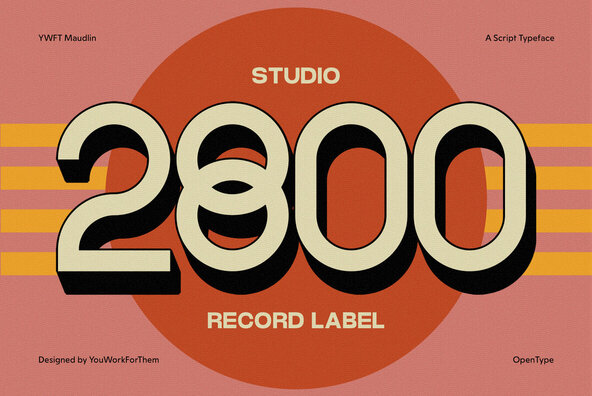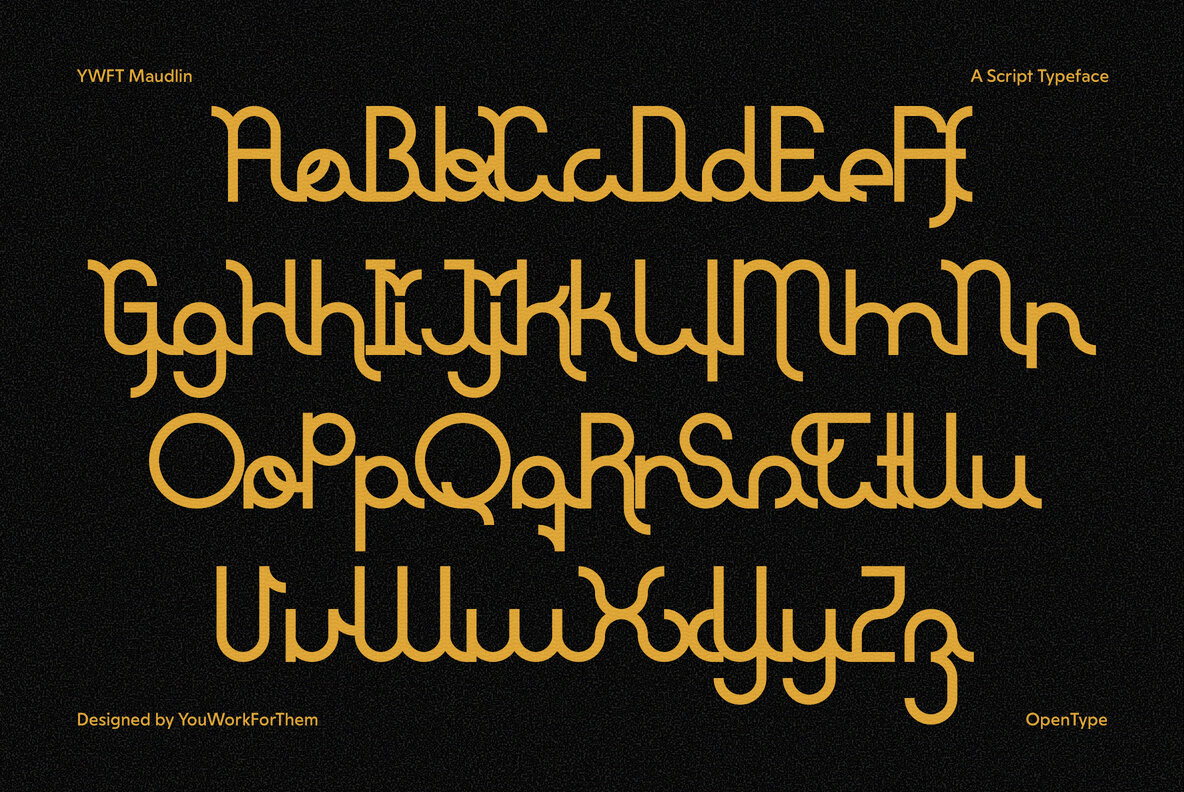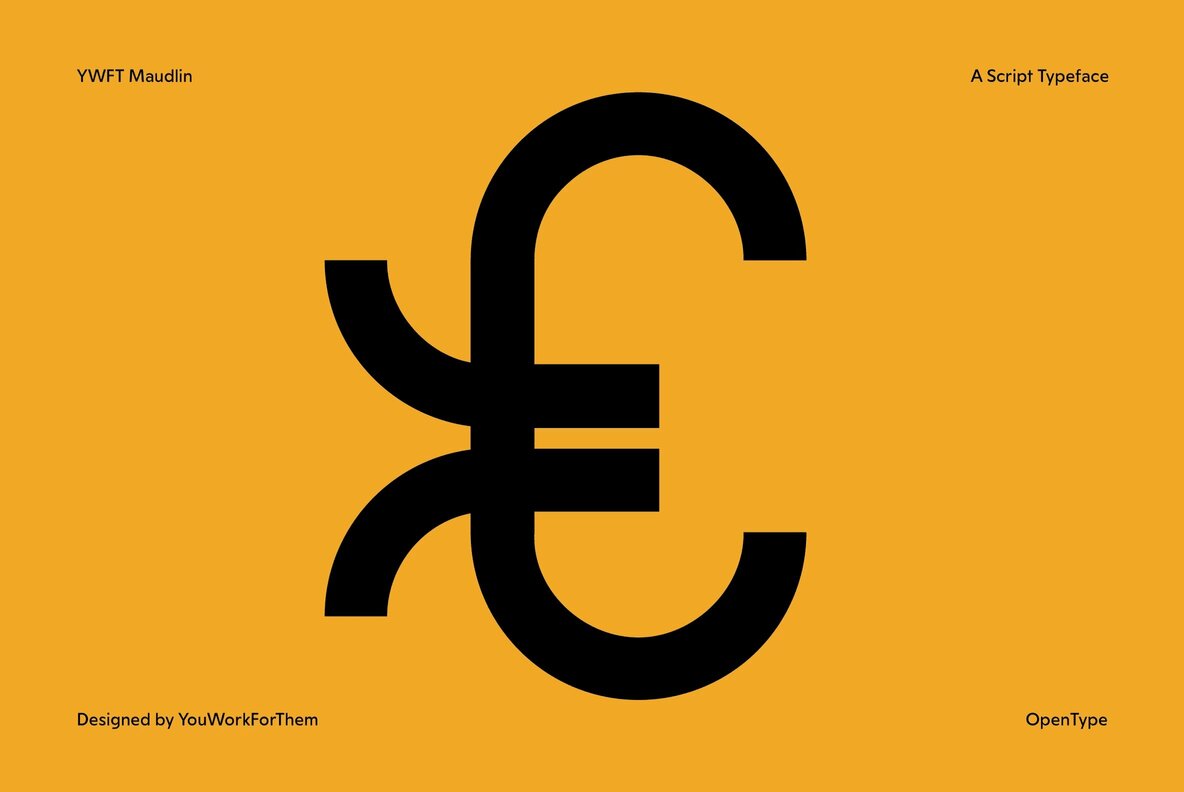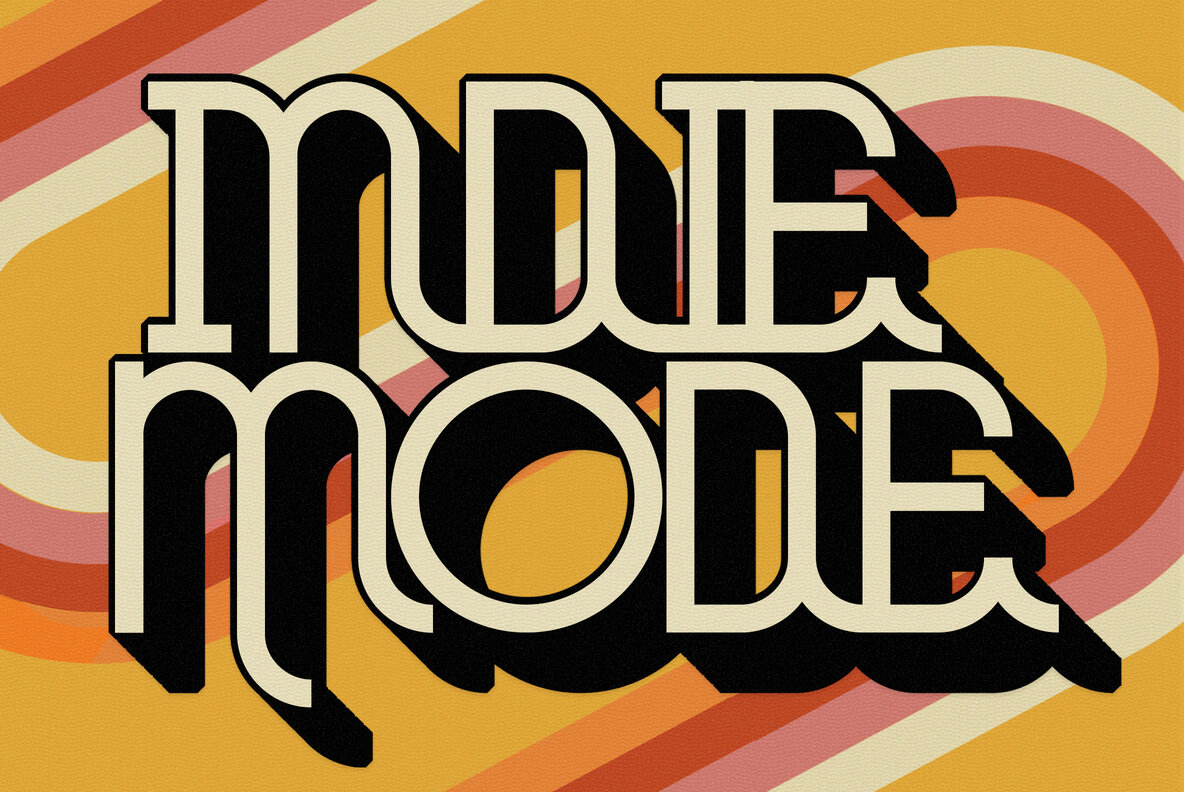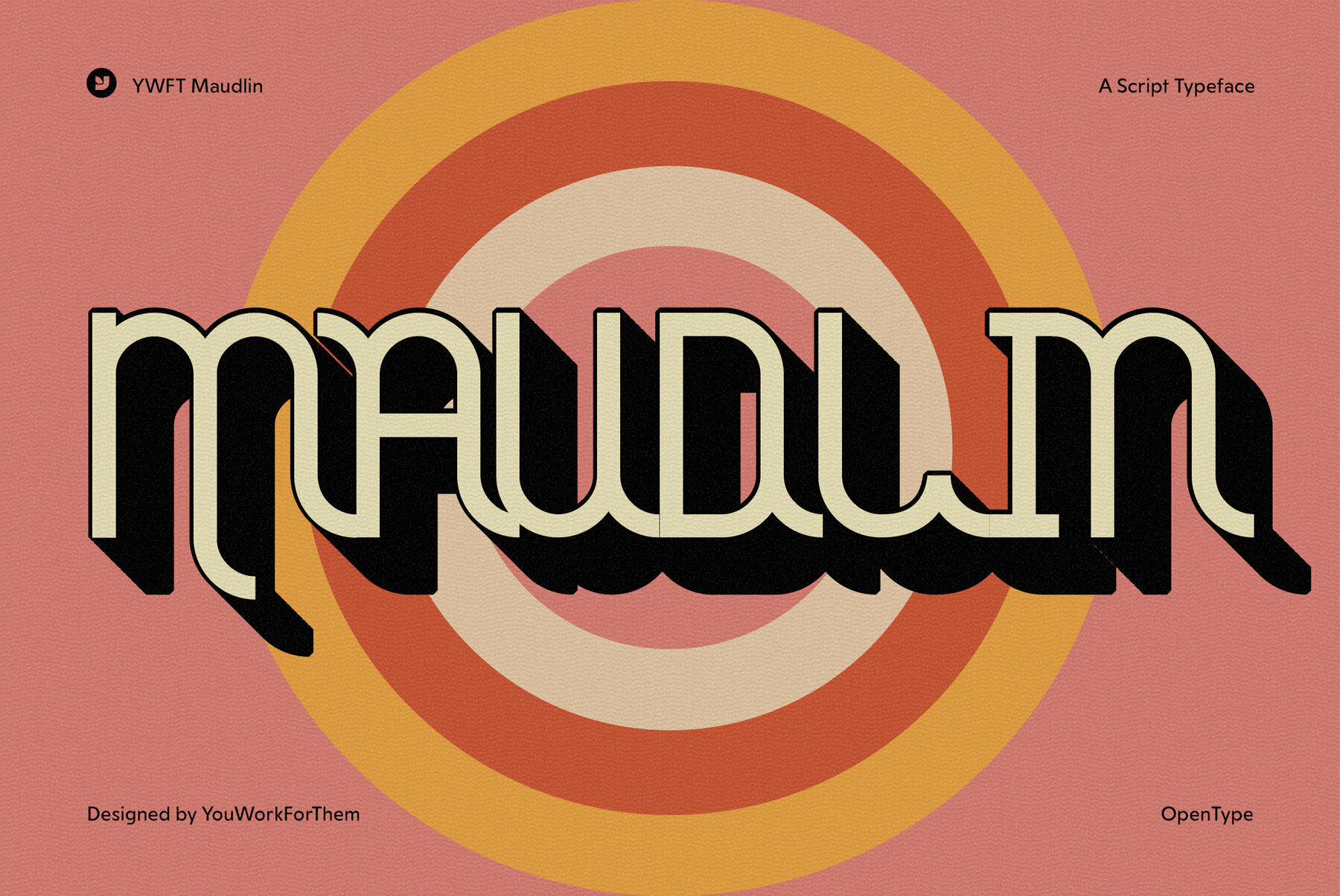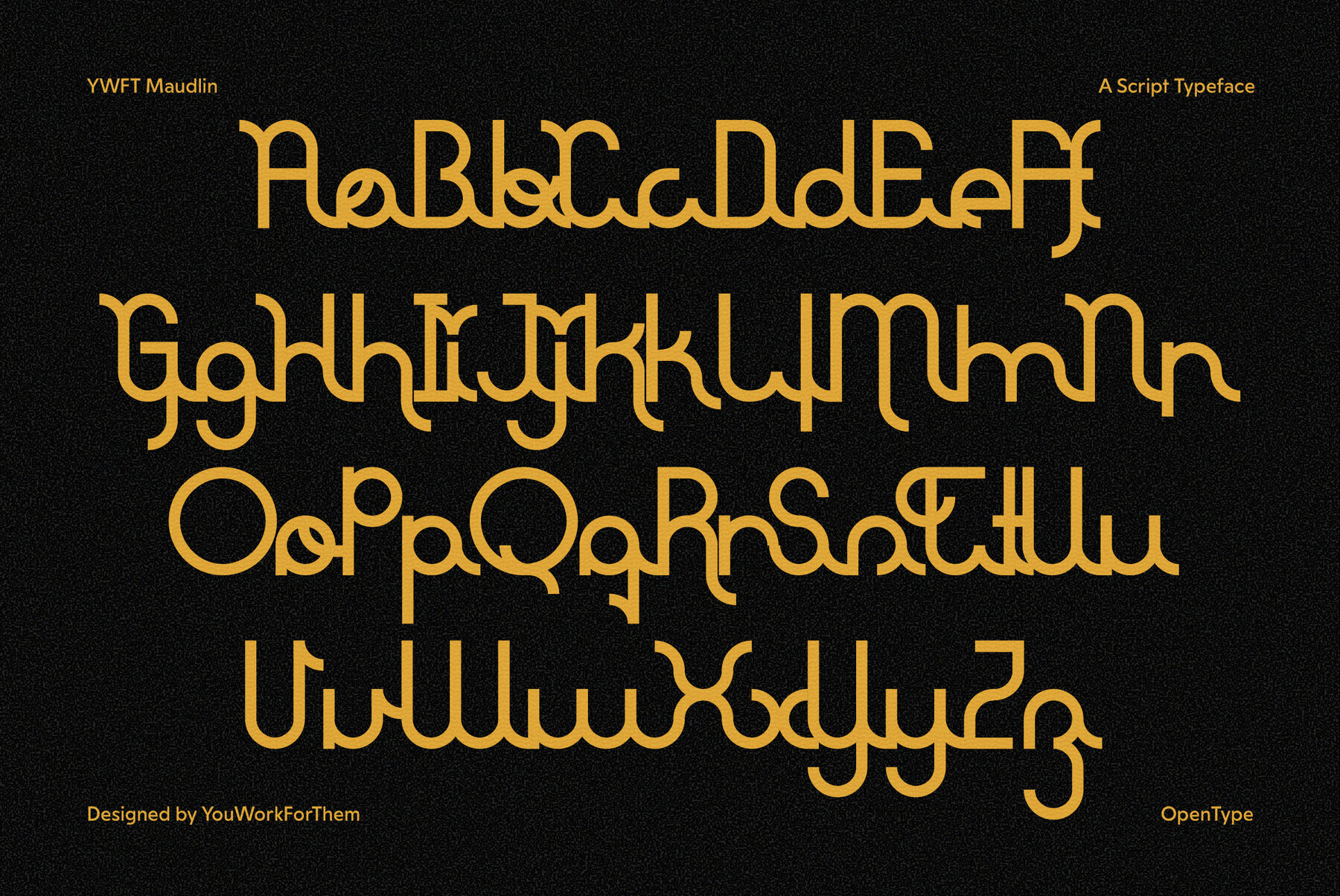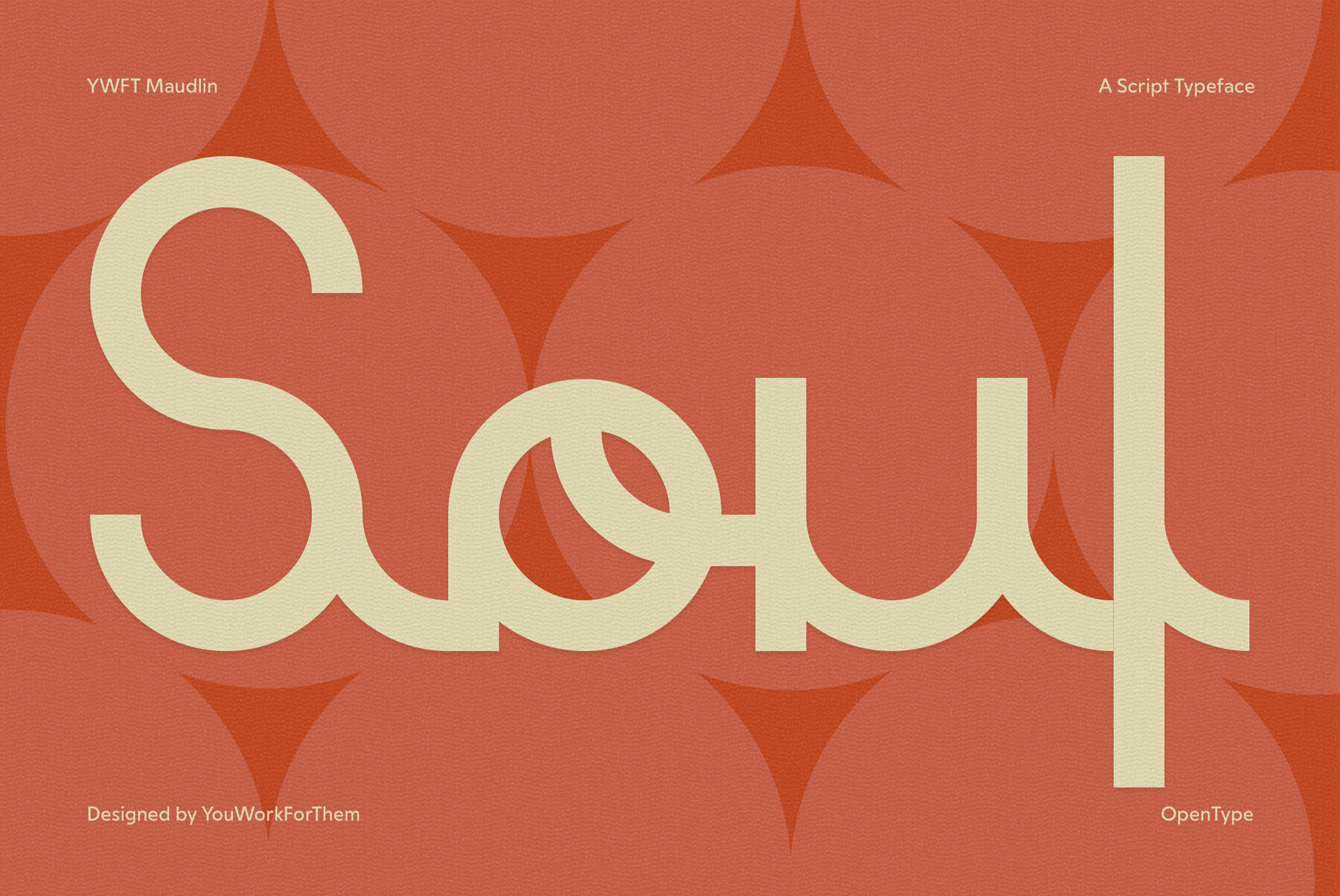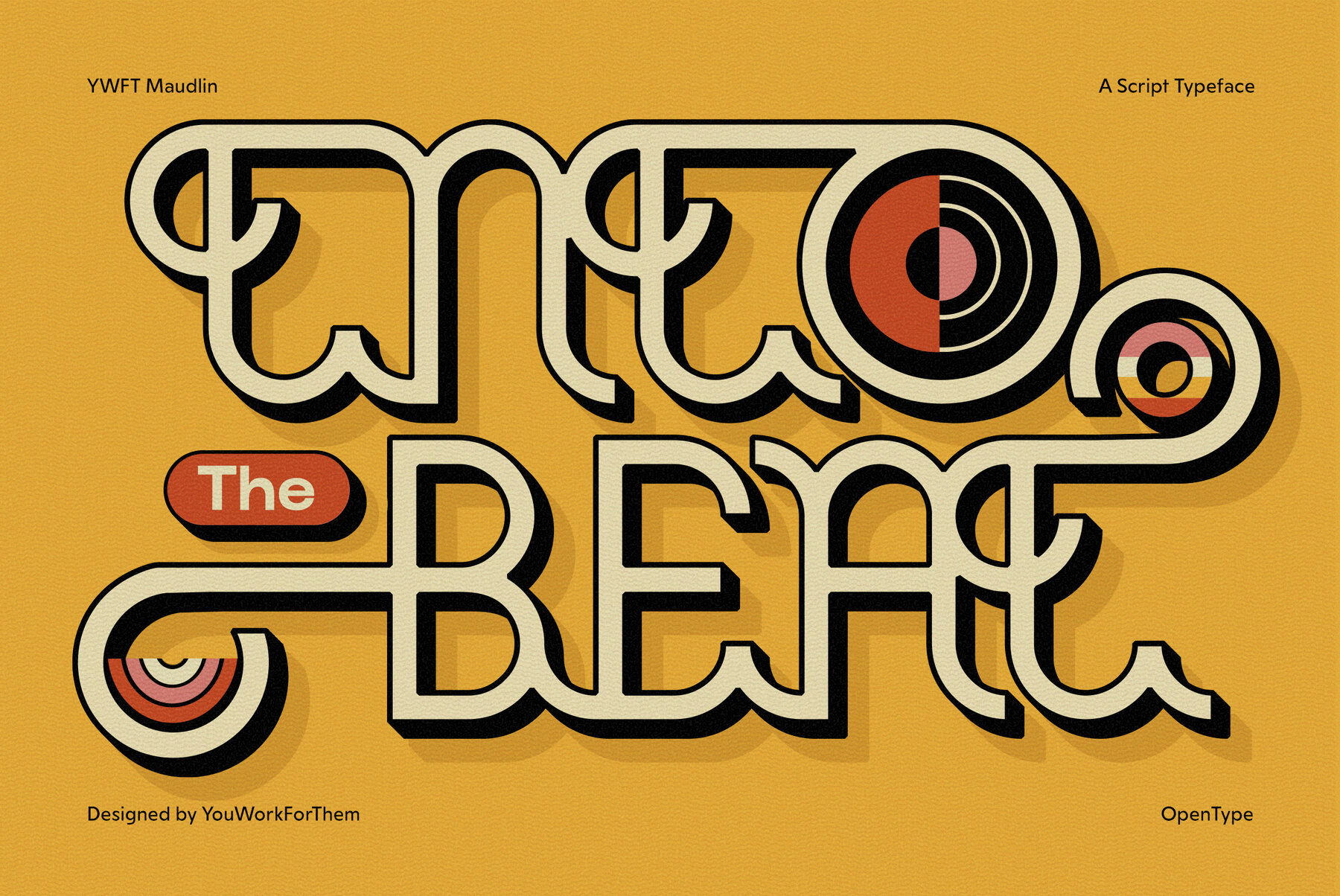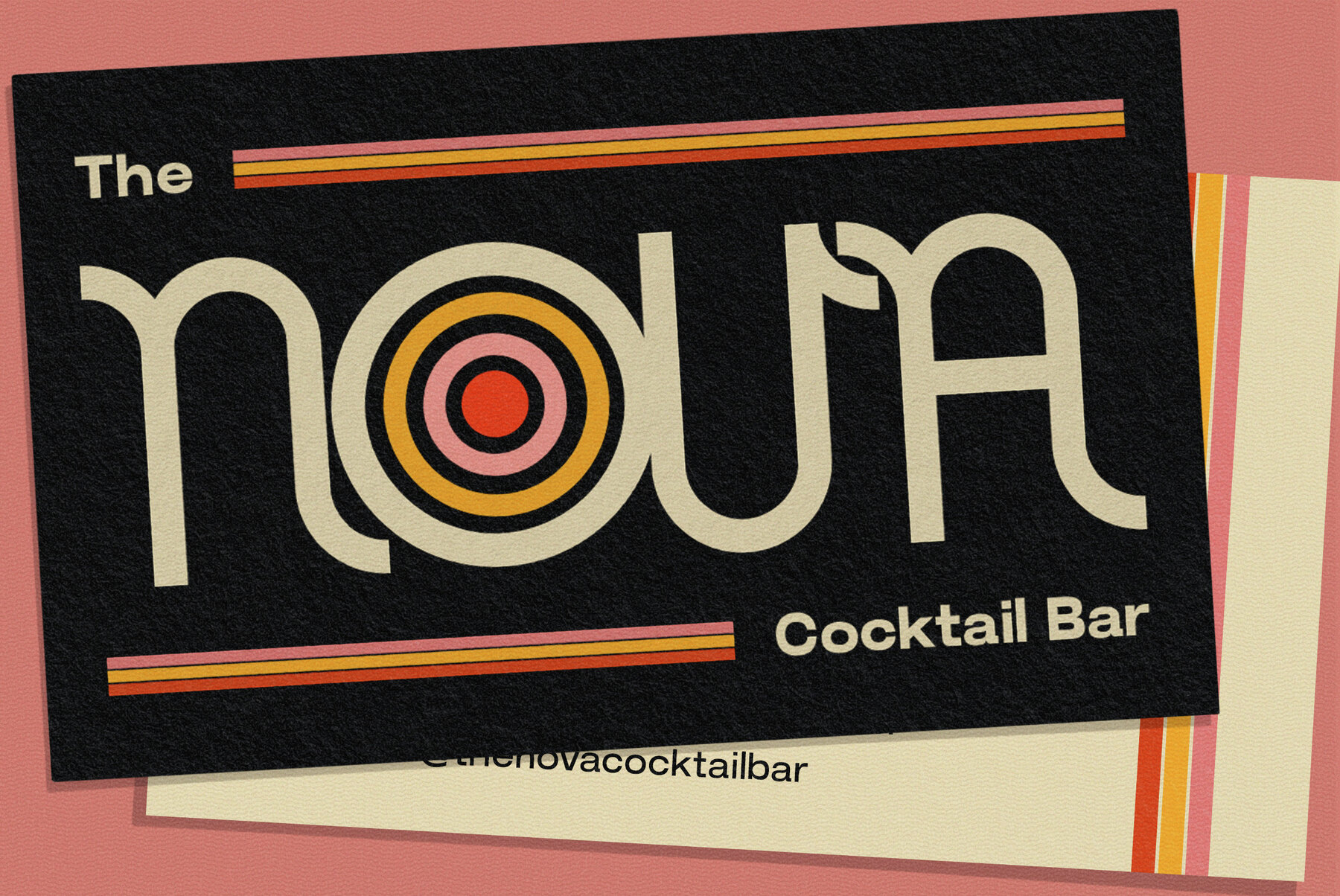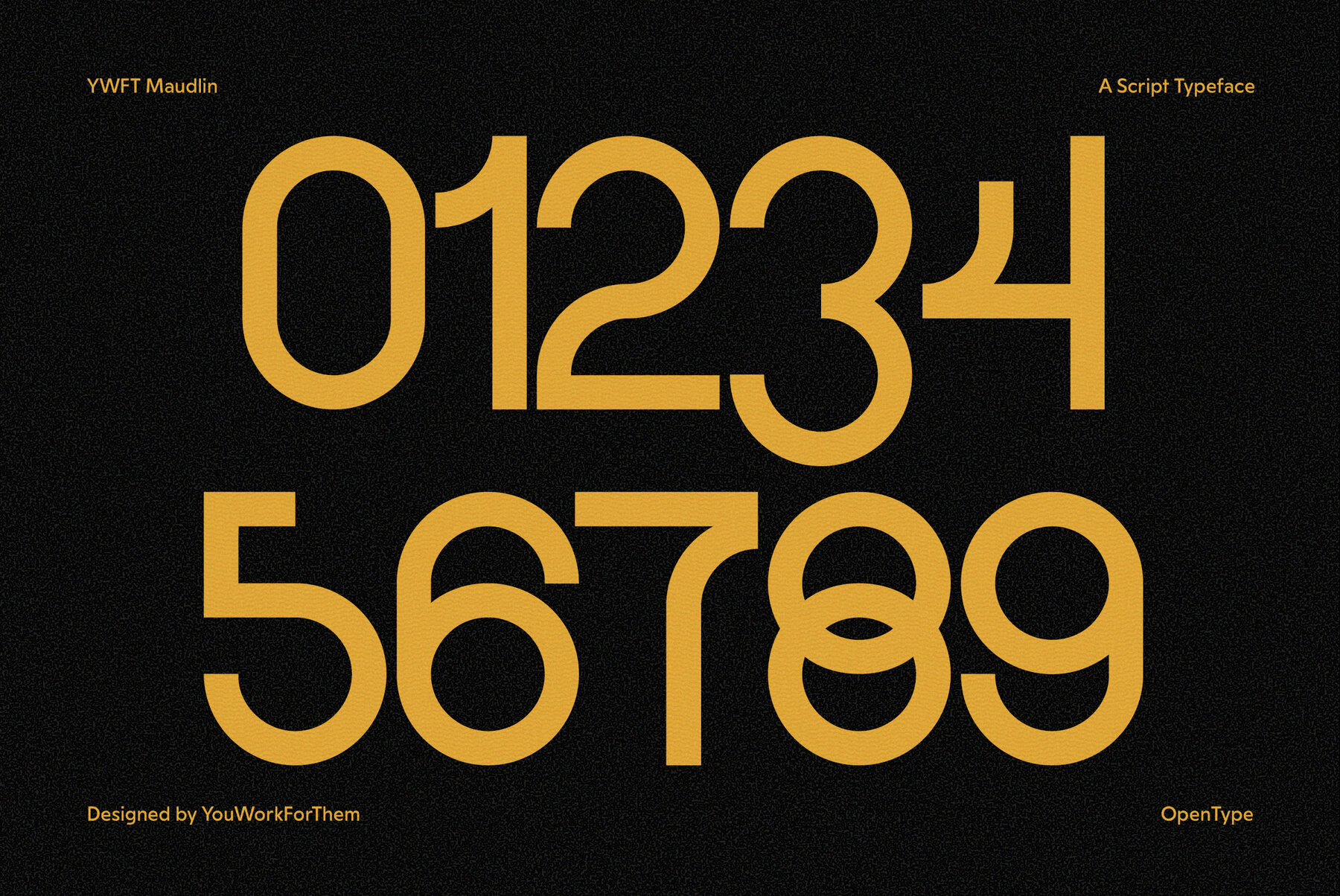
YWFT Maudlin is a contemporary, adorable and round font design. The letters in YWFT Maudlin were designed to connect and twist around each other, resulting in endless type designs.
YWFT Maudlin is a contemporary, adorable and round font design. The letters in YWFT Maudlin were designed to connect and twist around each other, resulting in endless type designs. This release works best in headline and display purposes. YWFT Maudlin was converted to opentype format in 2010.